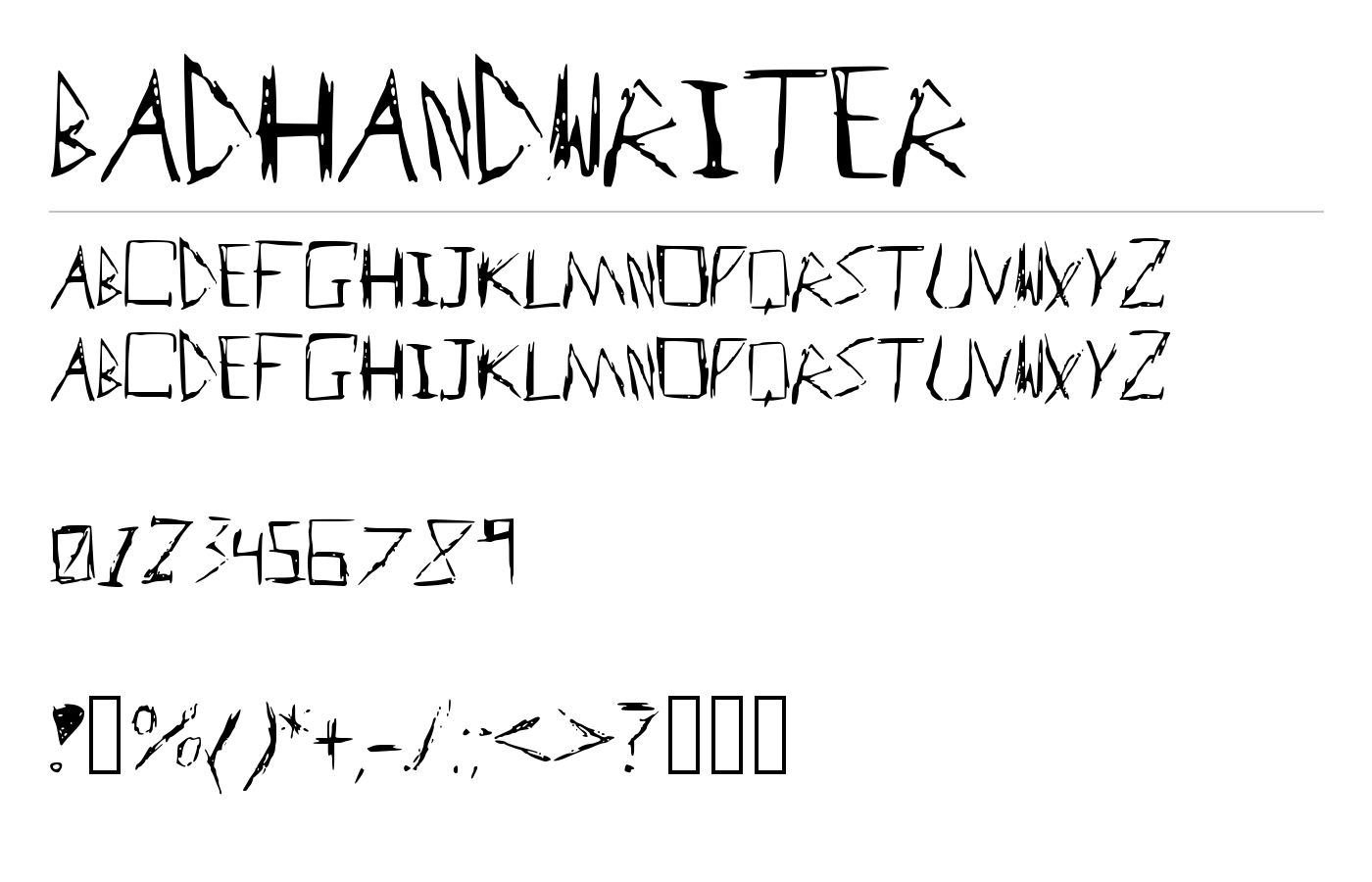
BadHandwriter is a quirky, hand-drawn display font characterized by sharp, jagged strokes and irregular letterforms that evoke a spontaneous, imperfect handwriting style. Its narrow, uneven shapes and rough edges give it a raw, edgy personality, making it ideal for creative projects, posters, or designs that seek a bold, unconventional, and playful look. This font works best in headlines or decorative uses where a distinctive, artistic vibe is desired.
BadHandwriter Font
About BadHandwriter Font